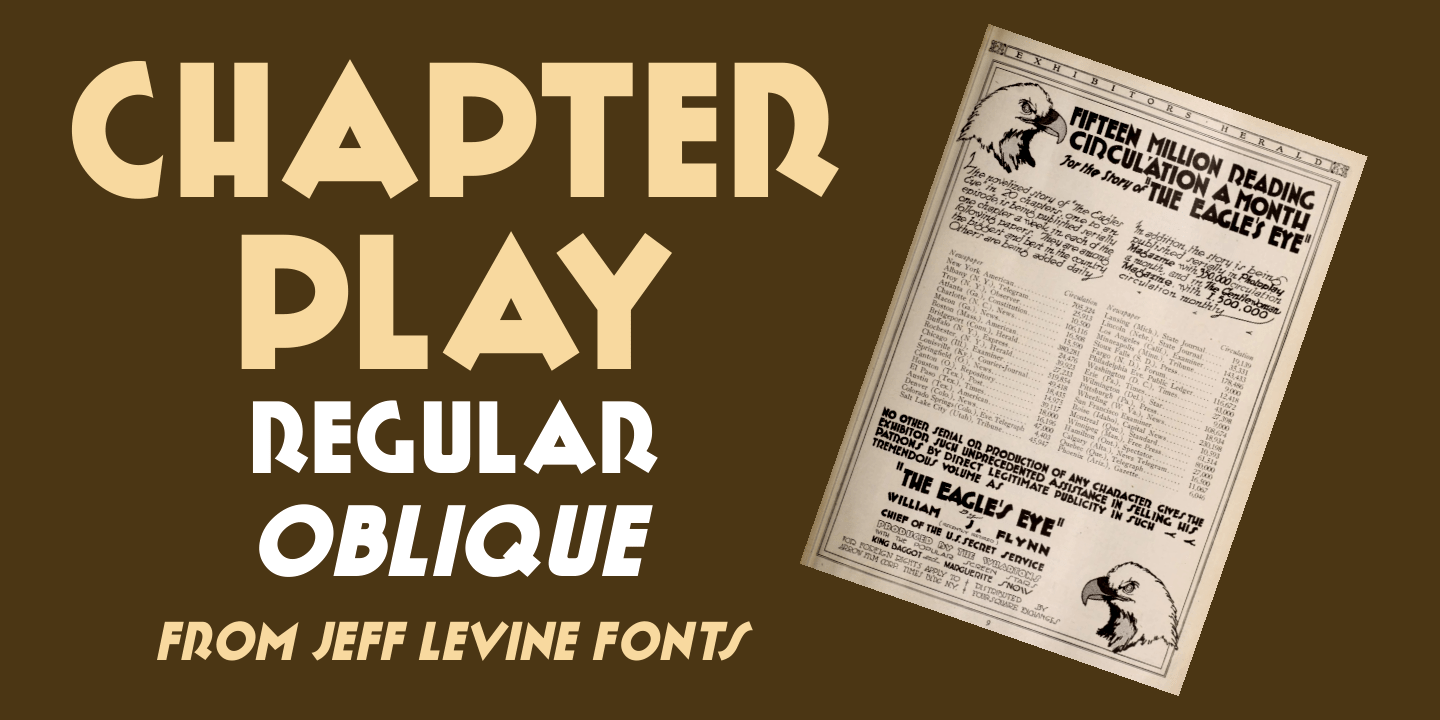
Chapter Play
An ad in the May 11, 1918 issue of The Exhibitor's Herald for a movie serial entitled "The Eagle's Eye" was hand lettered in a bold sans serif style with early Art Deco influences.
This is now available as Chapter Play JNL in both regular and oblique versions.
('Chapter Play' is another term for a movie serial.)
Chapter Play includes 213 glyphs.